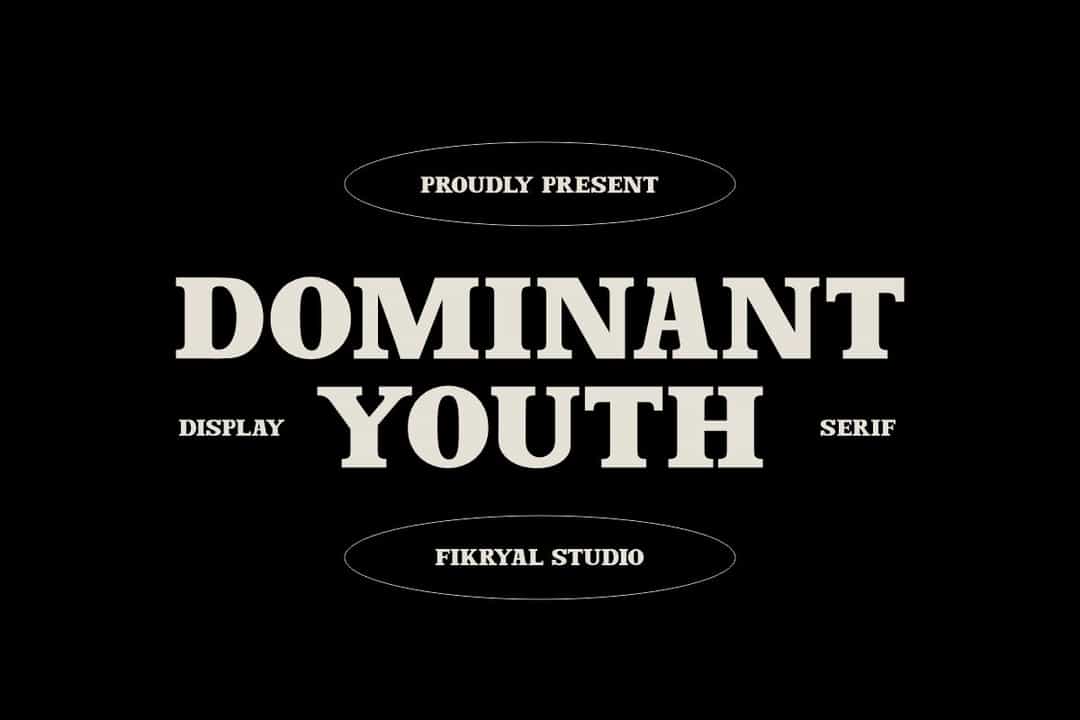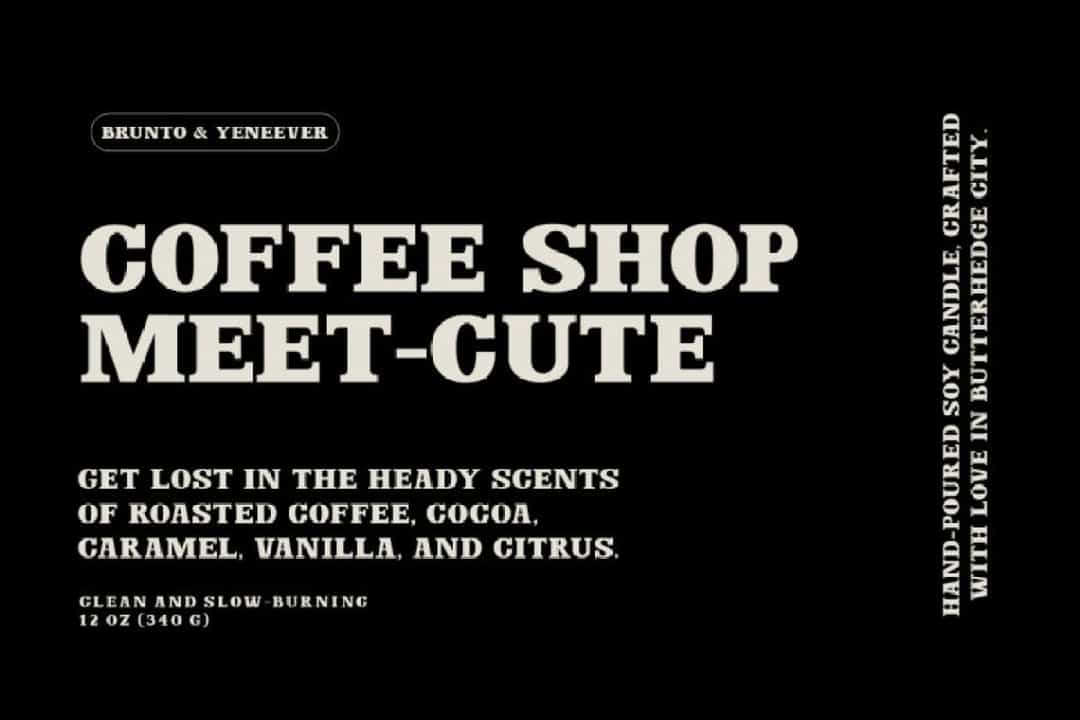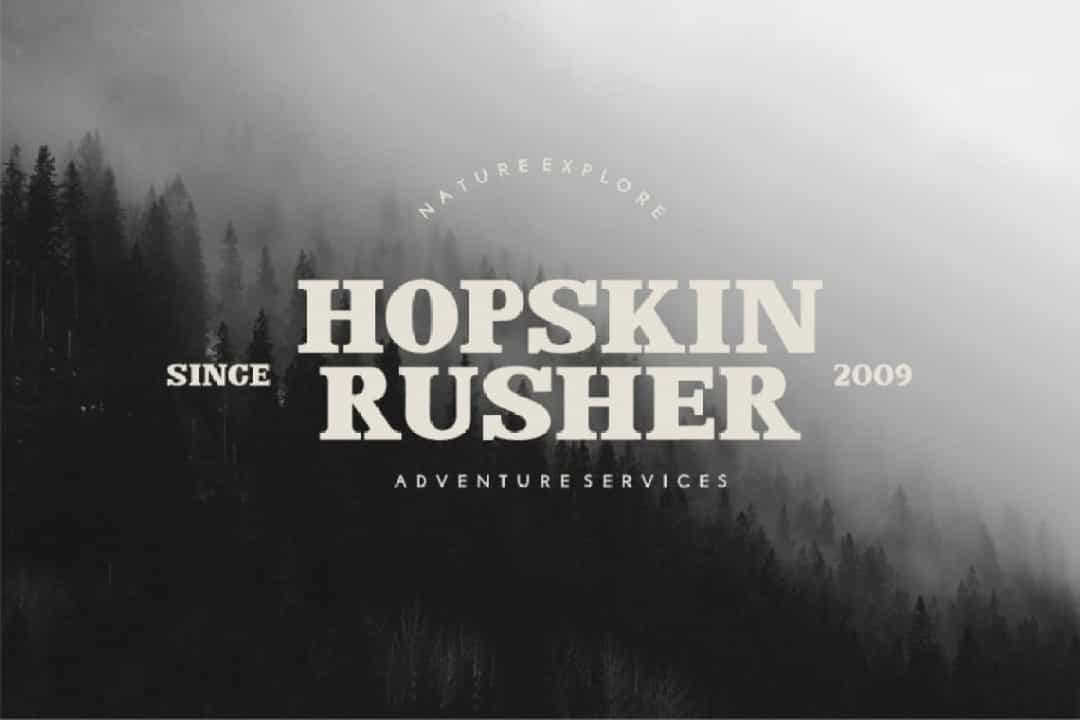
Dominant Young is a bold and striking presentation serif typeface designed to convey confidence and power. With its dynamic appearance, Dominant Youth leaves an unforgettable mark in any creative work it enters. Its strong letterforms combine classical sophistication with contemporary influences while its slim and tall design add a touch of class while its sharp serifs give this typeface its distinct edge.